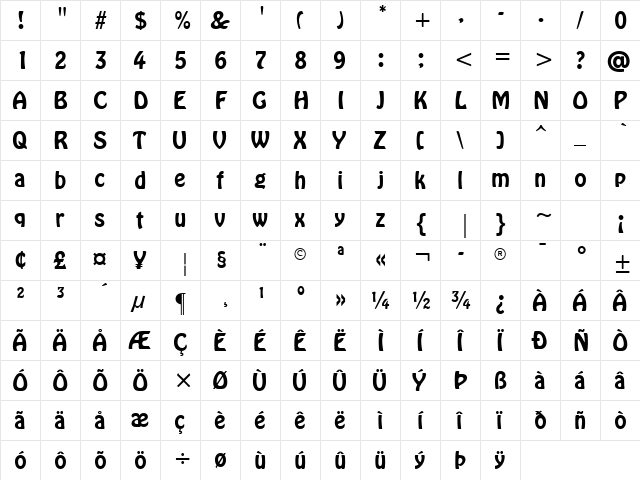
Mr. Speed 3 Regular Font Preview
Mr. Speed 3 Regular
Mr. Speed 3 Regular Font Details
Design Context for Mr. Speed 3 Typeface
Mr. Speed 3 is a composed and adaptable typeface that performs quietly and consistently across a wide range of design contexts.